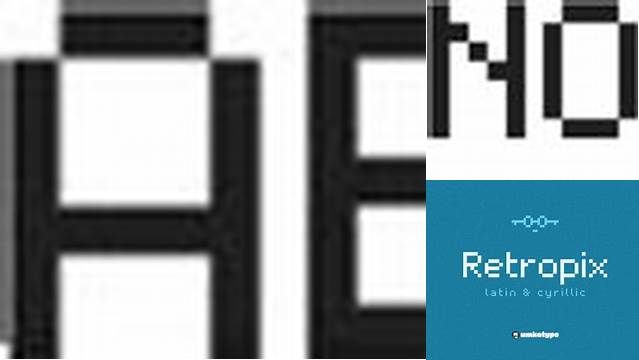
Retropix Font: Free Download & Pixelated Design Guide
Retropix Font Free Download: Your Ultimate Guide to Pixelated Perfection
Hey guys! If you're on the hunt for that perfect pixelated aesthetic, you've probably stumbled upon the Retropix font. And if you're here, you're likely looking for a Retropix font free download. Well, you've come to the right place! This article is your comprehensive guide to everything Retropix, from where to snag a free download to how to use it like a pro. We'll dive deep into the font's characteristics, its ideal applications, and even touch upon some alternatives to keep your design toolbox well-stocked. So, buckle up, and let's get this pixel party started!
What Makes Retropix Font So Special? Unveiling the Pixelated Charm
First things first, what exactly is it that makes the Retropix font so darn appealing? In a nutshell, it's all about embracing the nostalgia of retro gaming and vintage computer graphics. This font category typically features bold, blocky letterforms, meticulously crafted to resemble the low-resolution displays of yesteryear. The beauty of Retropix lies in its simplicity and instantly recognizable style. It's like a visual time machine, transporting viewers back to the days of 8-bit adventures and the dawn of digital art. Whether you're a seasoned designer or just starting out, the Retropix font is a fantastic tool for adding a touch of retro flair to your projects. Its unique aesthetic grabs attention, making it perfect for a variety of applications, from gaming logos and website headers to social media graphics and even print designs. The font's inherent characteristics create a sense of fun, playfulness, and a dash of cool, making it an excellent choice for projects that aim to capture a youthful or nostalgic audience. Its ability to evoke feelings of nostalgia is a significant advantage, especially when targeting audiences who grew up with these pixelated graphics. This font family isn't just a collection of characters; it's a statement. It's a nod to a specific era, a celebration of simplicity, and a tribute to the pioneers of digital design. So, whether you're designing a poster for a retro game night, creating a logo for a tech startup with a vintage vibe, or simply experimenting with different font styles, Retropix font has the potential to elevate your project.
One of the key elements of the Retropix font is its readability. Despite its blocky appearance, a well-designed pixel font should remain clear and legible, even at smaller sizes. This characteristic is crucial for any font intended for use in body text or headings. The spacing between the letters and the overall design of each character play a vital role in ensuring that the text remains easily readable. The goal is not only to capture the aesthetic of pixelated graphics, but also to provide a user-friendly experience. The best Retropix fonts strike a balance between visual appeal and practicality, ensuring that the retro style does not compromise readability. This attention to detail distinguishes the exceptional pixel fonts from the mediocre ones and underscores the importance of choosing fonts that are both aesthetically pleasing and functional. Moreover, a well-designed Retropix font will often include a range of characters and symbols to cater to diverse design needs. This could include numerals, punctuation marks, and special characters, each rendered in the same pixelated style to maintain a consistent aesthetic across the entire project. The inclusion of such features allows designers to create more sophisticated layouts and to incorporate the font into various types of content, further increasing its versatility and value. The choice of the font also depends on the particular project, since there are many different types of Retropix fonts. Some may aim for a more modern look, while others may focus on a retro design, so choosing the right option can greatly affect the project outcome.
When you are at the font-finding phase, you also have to determine what type of Retropix font is most suitable for your project. Some Retropix fonts are more suitable for headlines, while others may be designed for longer text. You should also take into account the style, thickness, and spacing of the font in order to find the right fit. The best approach is to download and test several fonts to determine what works best for your purposes. Before you download your font, you should also consider its file format. The most common file formats are TTF (TrueType Font) and OTF (OpenType Font). These formats are widely compatible with most operating systems and design software, ensuring that the font can be easily installed and used in your projects. Additionally, you may want to examine the font's character set. Does it include all the necessary characters and symbols for your design? Many pixel fonts may have limited character sets, especially in their free versions, so make sure the font supports the characters you will need.
How to Use the Retropix Font: Tips and Tricks for Pixelated Projects
- Consider the Context: Think about where you'll be using the font. Is it for a website header, a game logo, or a poster? This will influence the font size and the overall design.
- Size Matters: Retropix fonts often look best at specific sizes. Experiment to find the optimal size for readability and visual impact. Too small, and it becomes a blurry mess. Too large, and the pixelation can be overwhelming.
- Pairing is Key: Pixel fonts can be paired with other fonts. Try combining them with clean, sans-serif fonts for body text or a contrasting serif font for a unique look.
- Color is Your Friend: Don't be afraid to play with color. Retropix fonts look fantastic in bold, vibrant colors. Try using colors inspired by retro games or the classic 8-bit palette.
- Spacing and Kerning: Pay attention to the spacing between letters (kerning). Some pixel fonts may need adjusting to ensure optimal readability.
To start, begin by using the font in a simple test project to get an understanding of how it looks in different settings. Create a test graphic, such as a simple logo or headline, to see how the font performs. Try out different sizes, colors, and styles to find out what works best. After testing the font and determining the optimal size and style, you can begin to integrate it into a larger project, making it the focal point of your design or using it as a supporting element. Experiment with different combinations and find the right balance between the pixelated font and other design elements. When implementing the Retropix font, make sure to use the proper file format and consider its compatibility with your design software. Make sure your graphic design software supports the font you are using. If you are using it on the web, make sure you have the necessary web font files in the correct formats. Moreover, remember that the Retropix font is a unique design element that can bring a lot of character to your project. Be creative and see how the font can be used to highlight and enhance your overall visual message.
Final Thoughts: Unleash Your Inner Pixel Artist